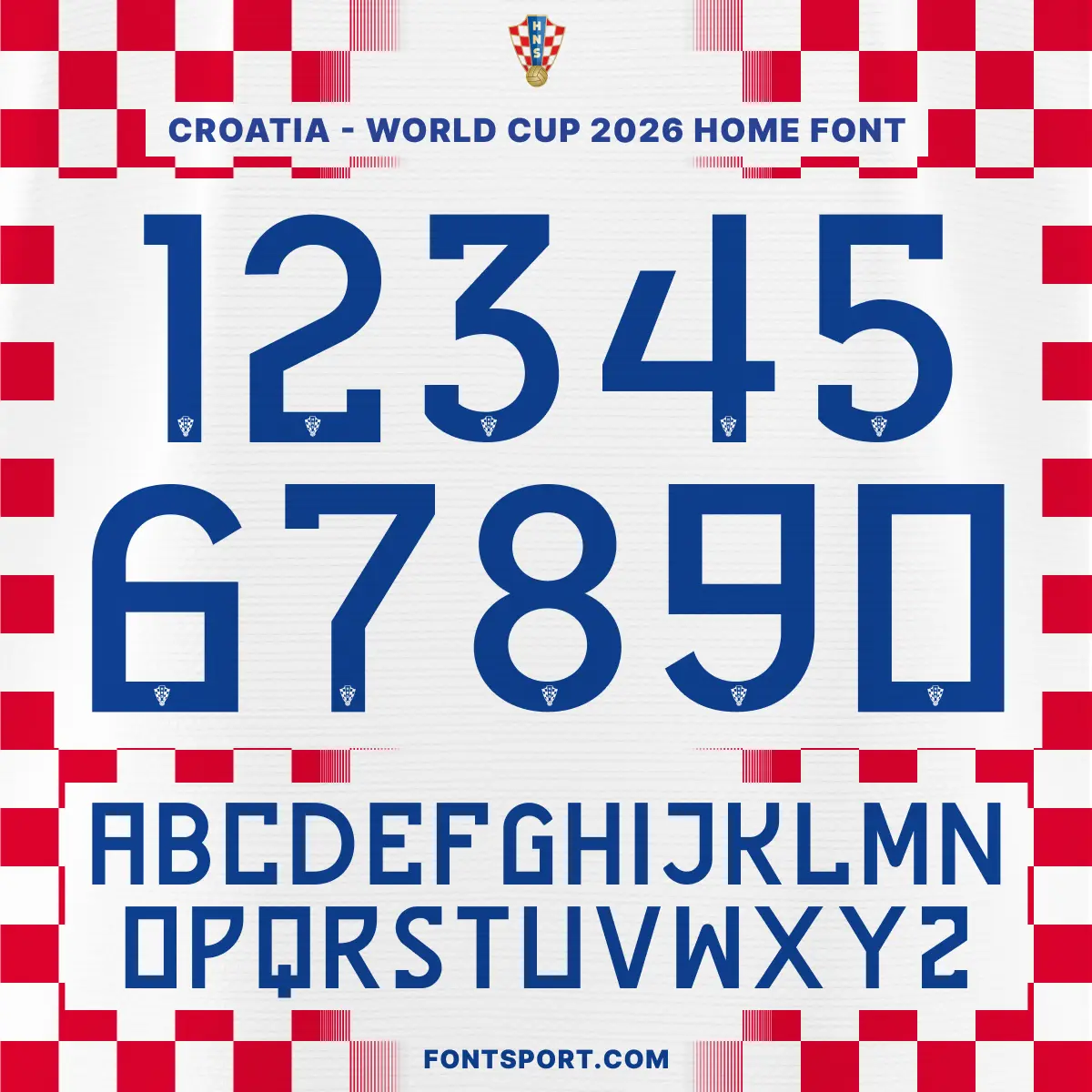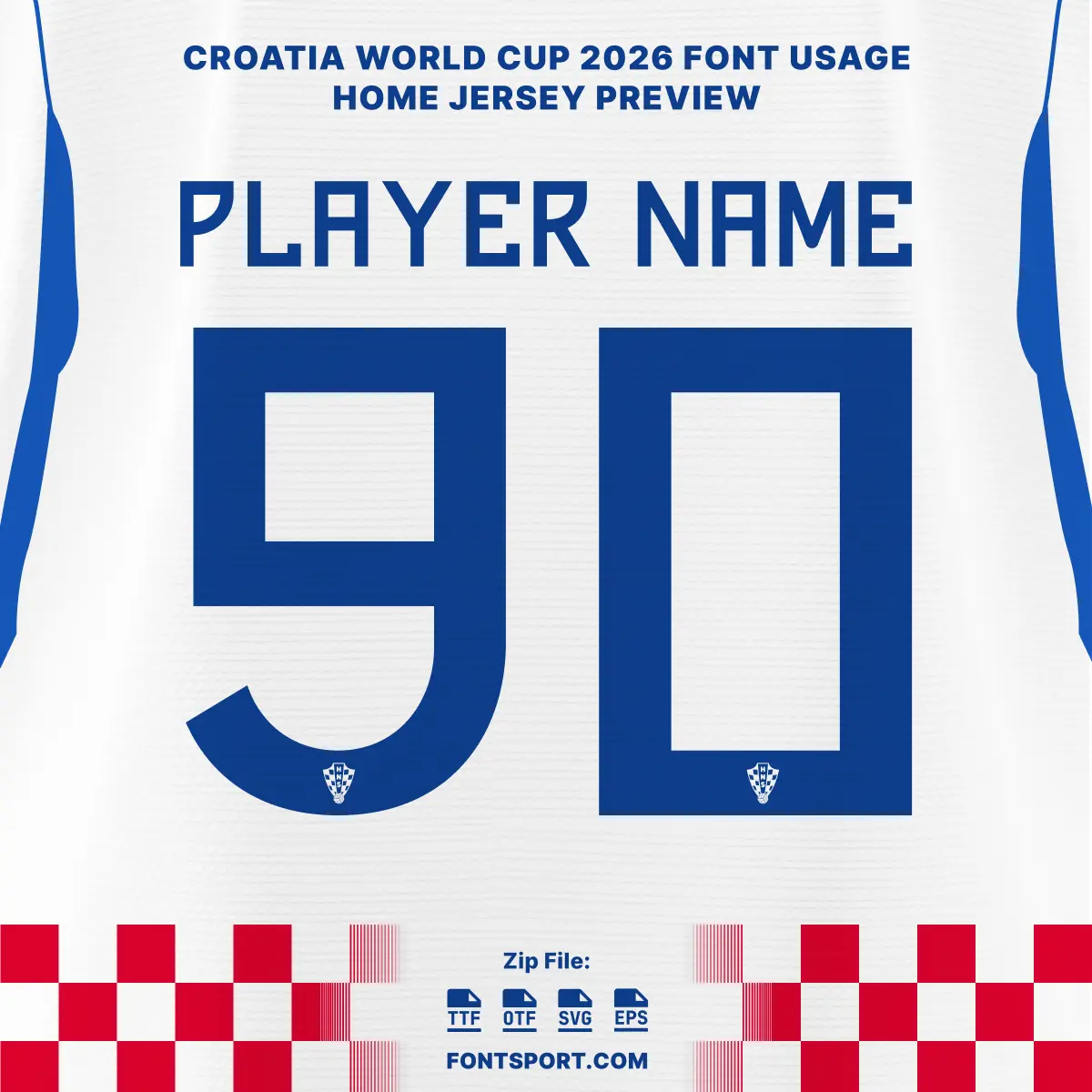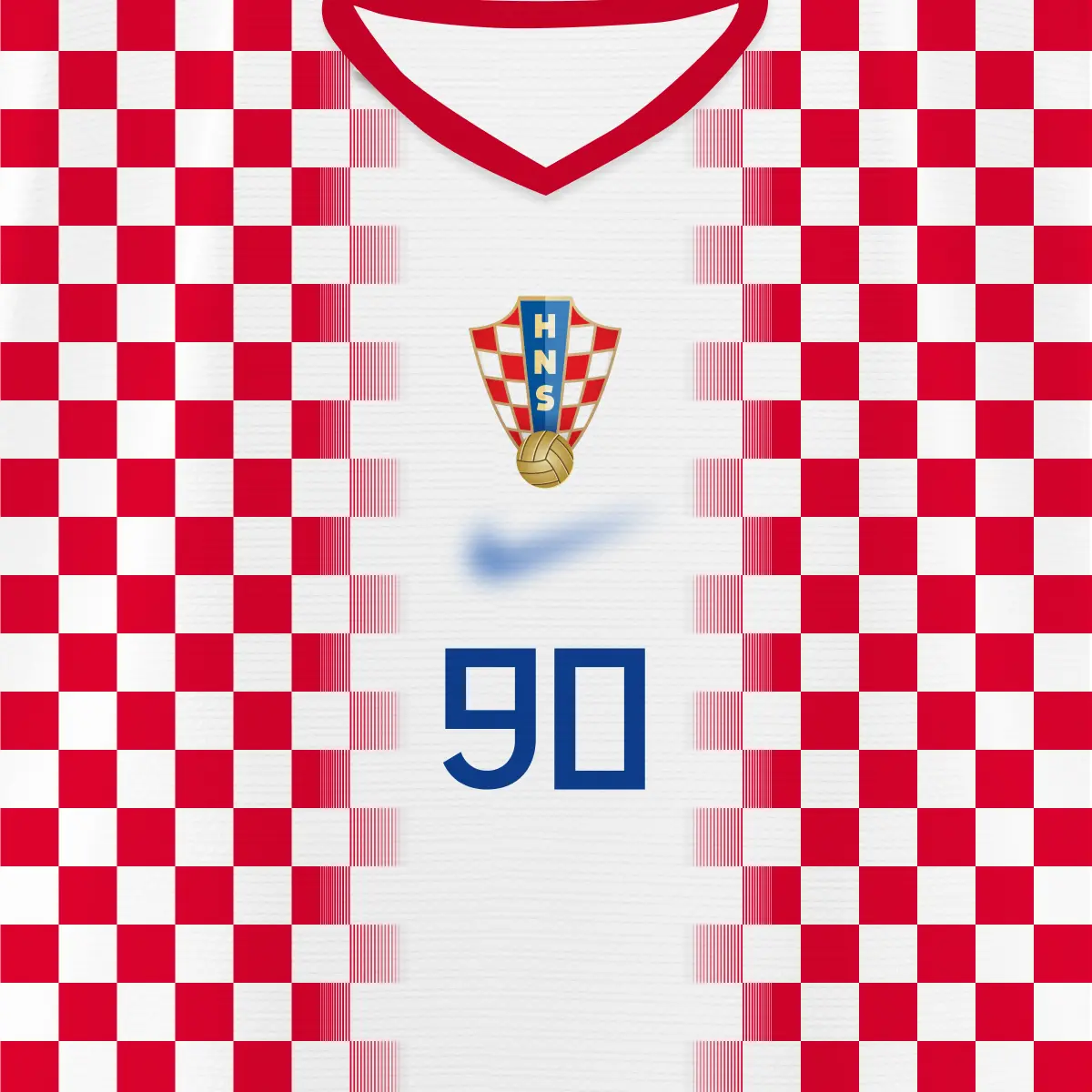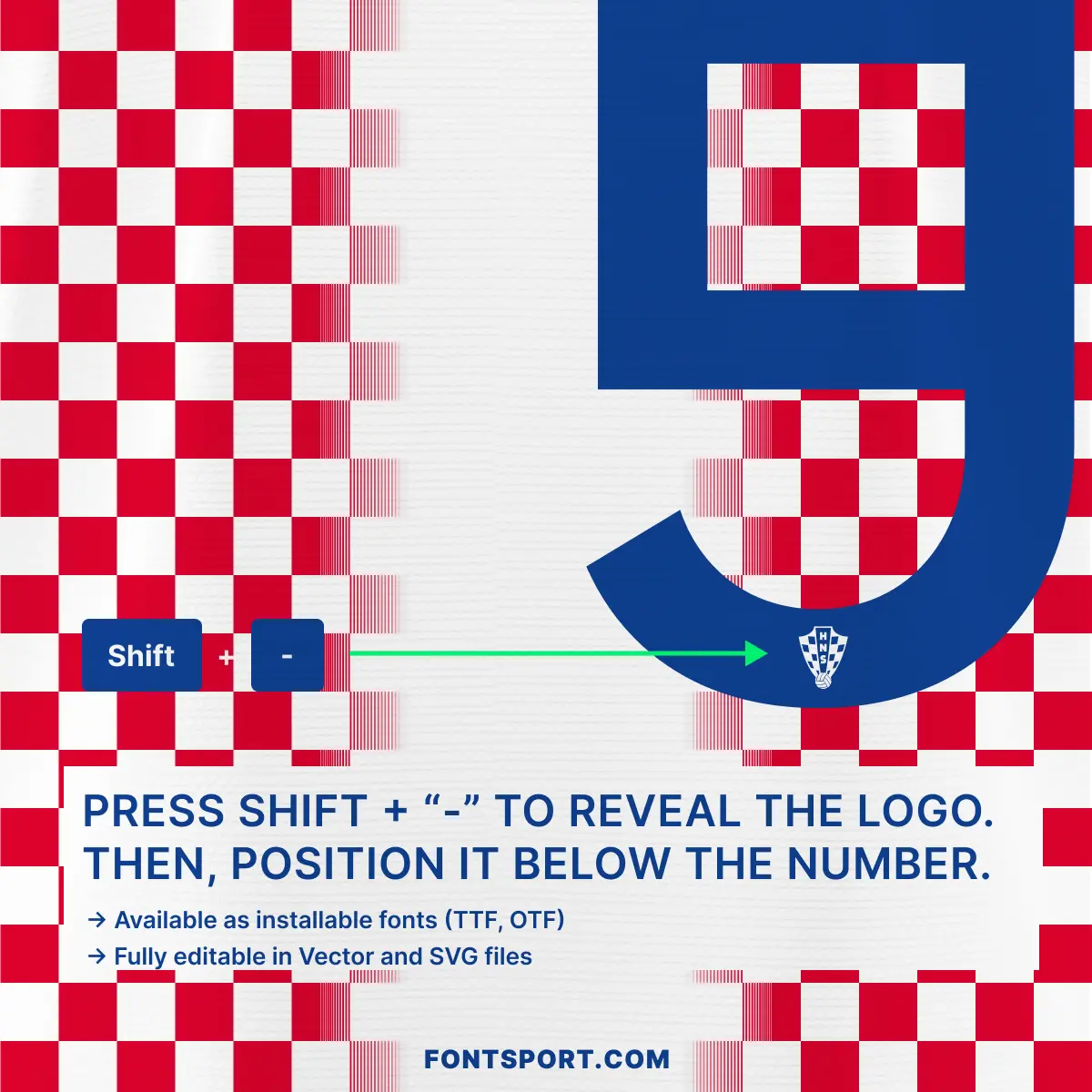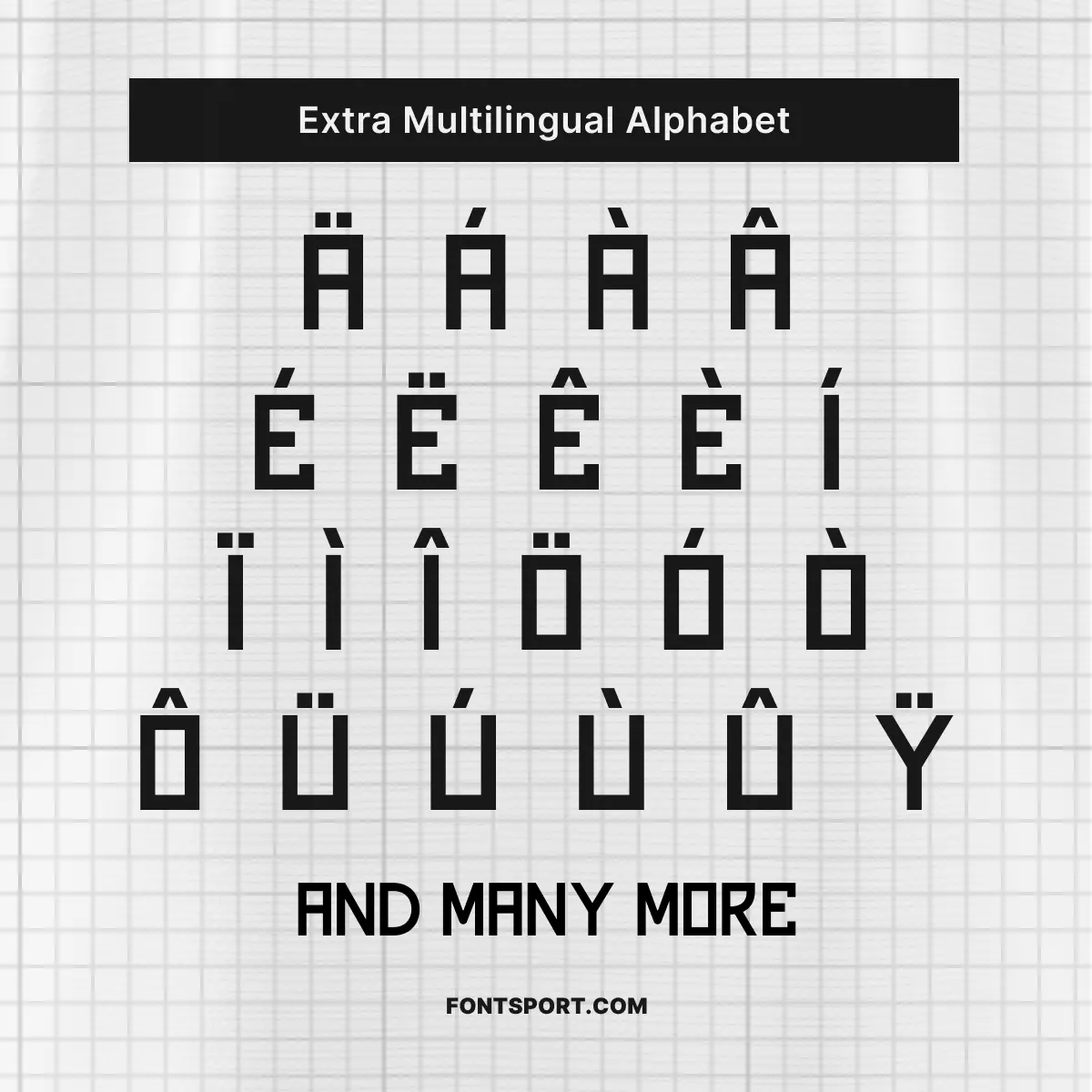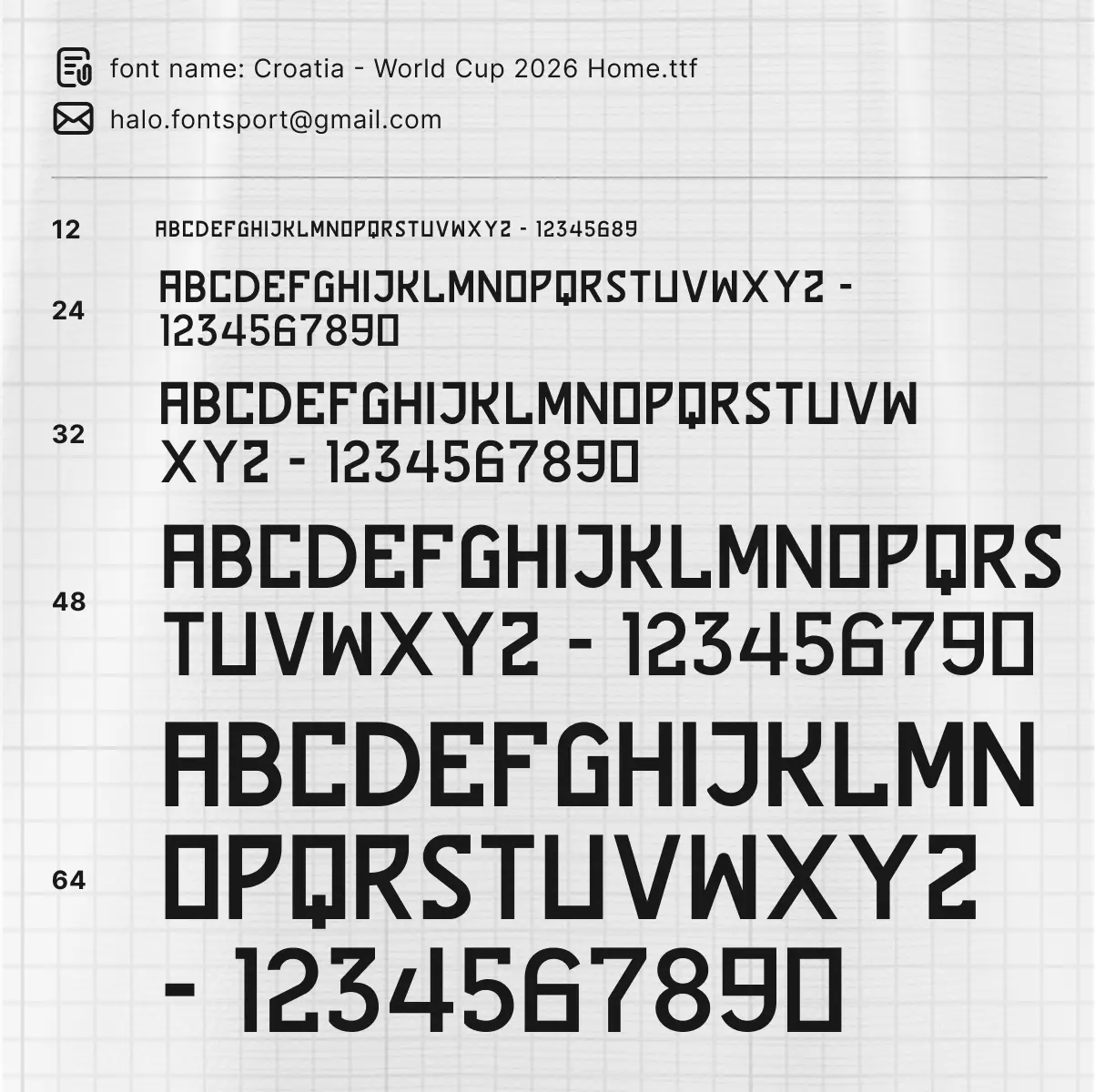
Croatia World Cup 2026 Home Font Kit – Football Typeface
The Croatia World Cup 2026 Home Font Kit captures the “Vatreni” spirit as the nation heads to North America for their seventh FIFA World Cup. This font mirrors the clean, modern aesthetic of the 2026 home collection, which reimagines the nation’s classic checkered pattern in a smaller, refined scale inspired by the iconic 1990 match against the United States. Designed for elite athletic performance, this typeface is a key element of Nike’s Aero-FIT innovation, reflecting the tactical sophistication and resilience of Croatian football.
Complete A–Z Character Set: Features the sleek, sharp uppercase letters that will be worn by icons like Luka Modrić and Joško Gvardiol on the world stage.
Full 0–9 Number Set: Optimized for maximum visibility, mirroring the numbers that led Croatia through a dominant qualifying campaign.
Extra Multilingual Alphabet: Full support for accented characters (Č, Ć, Đ, Š, Ž), allowing you to accurately represent Croatian roster names.
Integrated Team Identity: Add an authentic finish to your designs by revealing the official-style HNS crest within the typography through a simple keyboard shortcut.
This bundle is ideal for creating personalized football kits, striking match-day posters, or unique merchandise that celebrates the “unwavering spirit” of a nation back among the global elite.
This font kit is built for designers who want to bridge the gap between historic nostalgia and high-tech innovation:
1990 Retro Inspiration: Part of a campaign that pays homage to the 1990 match against the USA, a defining moment in the nation’s football story, while modernizing it for the 2026 tournament.
Aero-FIT Ready: Specifically designed to complement the engineered knit textures and centralized number placement featured in Nike’s 2026 template.
Optimized for Apparel: An ideal font for jersey printing, sports branding, and team uniforms that require a “sleek and athletic” appearance.
Versatile Design Asset: Use it as a football font for digital match-day banners or a sport font for physical print-on-demand products.